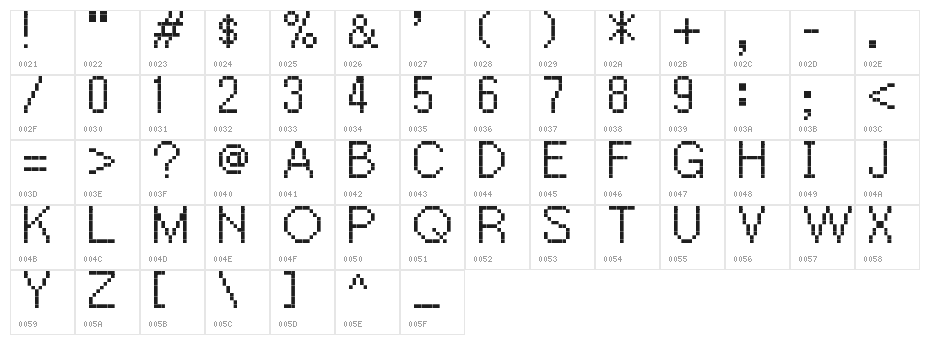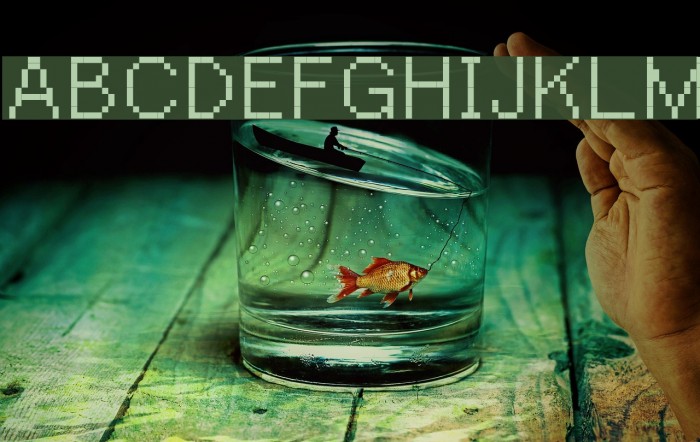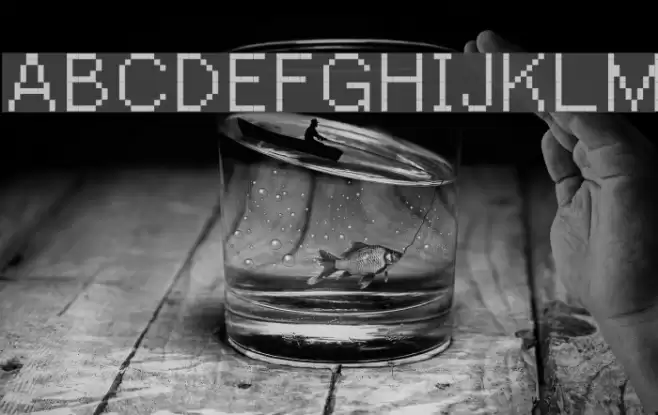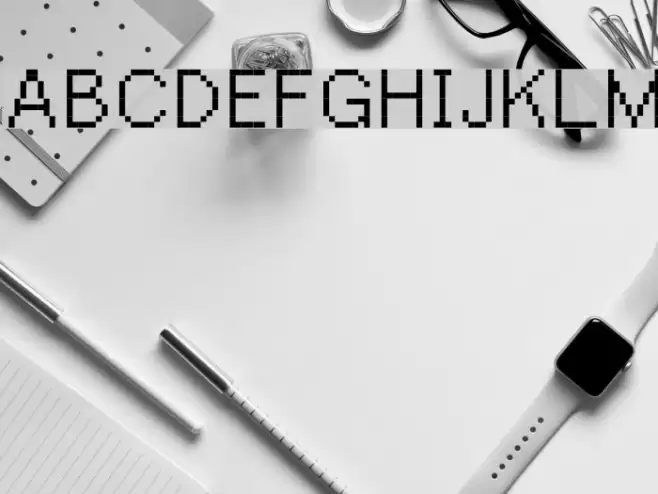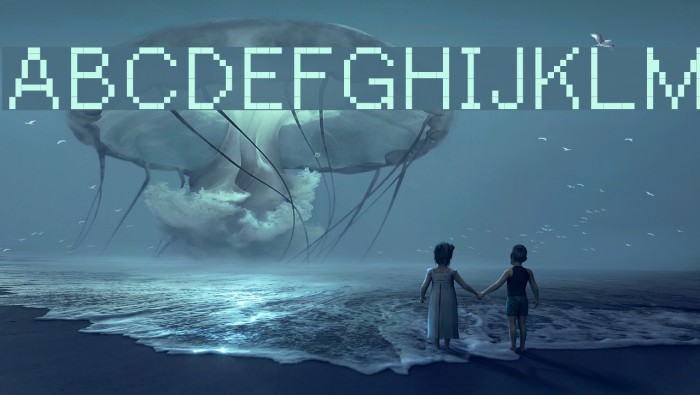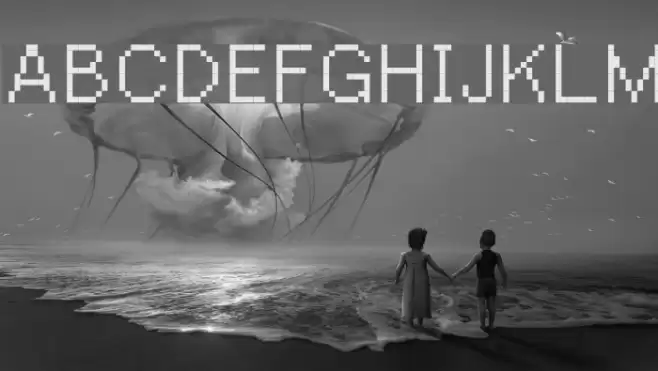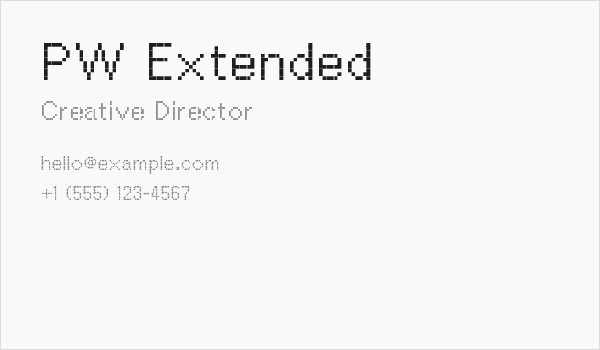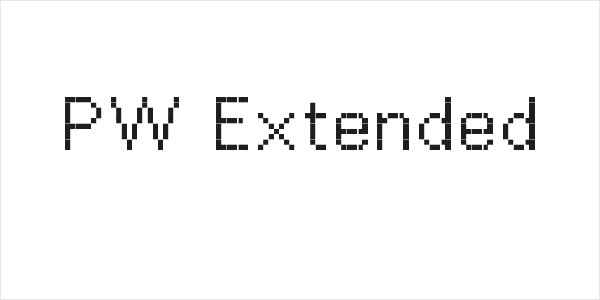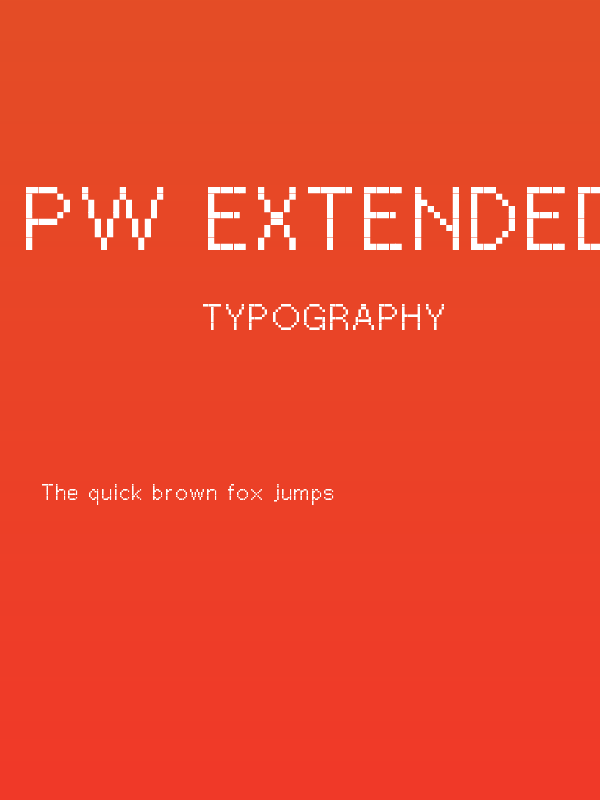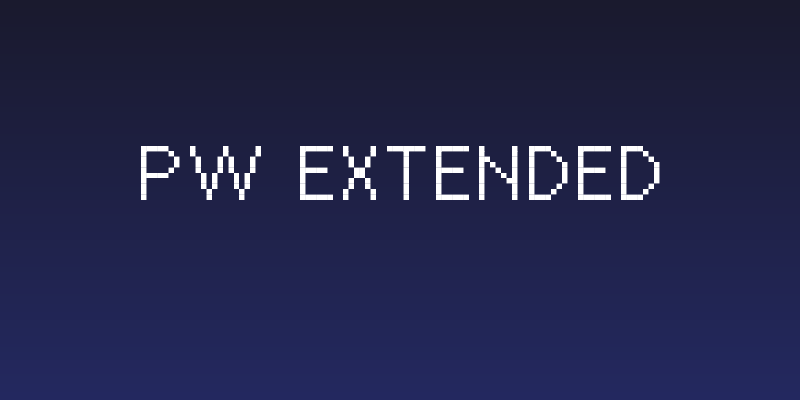
PW Extended Font
PW Extended Description
This font features a pixelated, grid-like design reminiscent of early digital displays and retro video games. Each character is constructed with a consistent square grid pattern, giving it a distinctly digital and technical appearance. The uppercase and lowercase letters maintain a uniform width, contributing to a monospaced feel, although the font is not strictly monospaced. The numerals and special characters follow the same design principles, ensuring a cohesive look across all glyphs. This style is ideal for projects that aim to evoke nostalgia for early computing or to create a futuristic, tech-oriented aesthetic.
| Use Case | Logos, Headlines, Digital Interfaces |
| Proposed Projects | Ideal for retro video game designs, digital art projects, tech-themed branding, and nostalgic digital interfaces. |